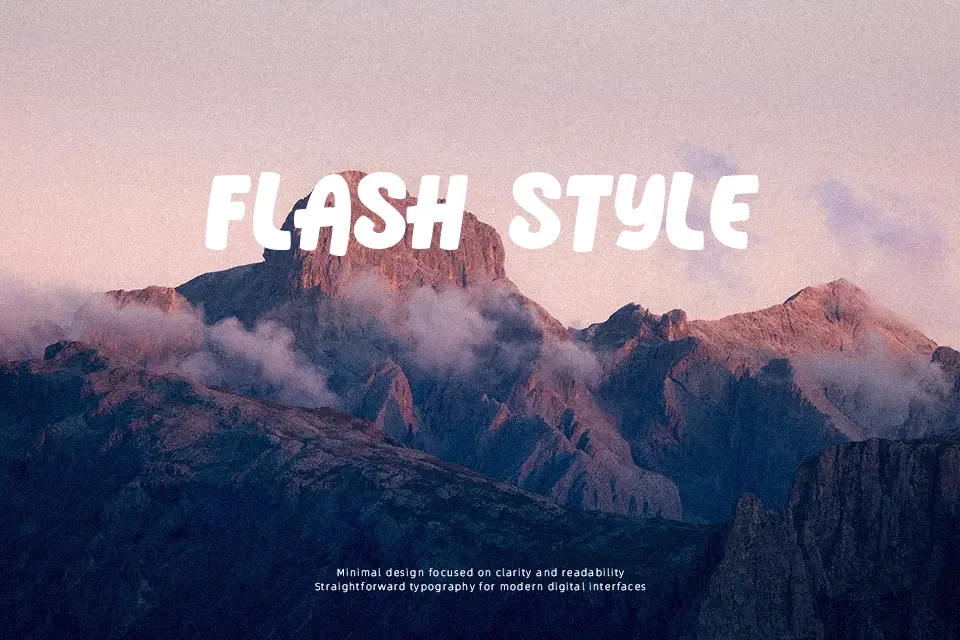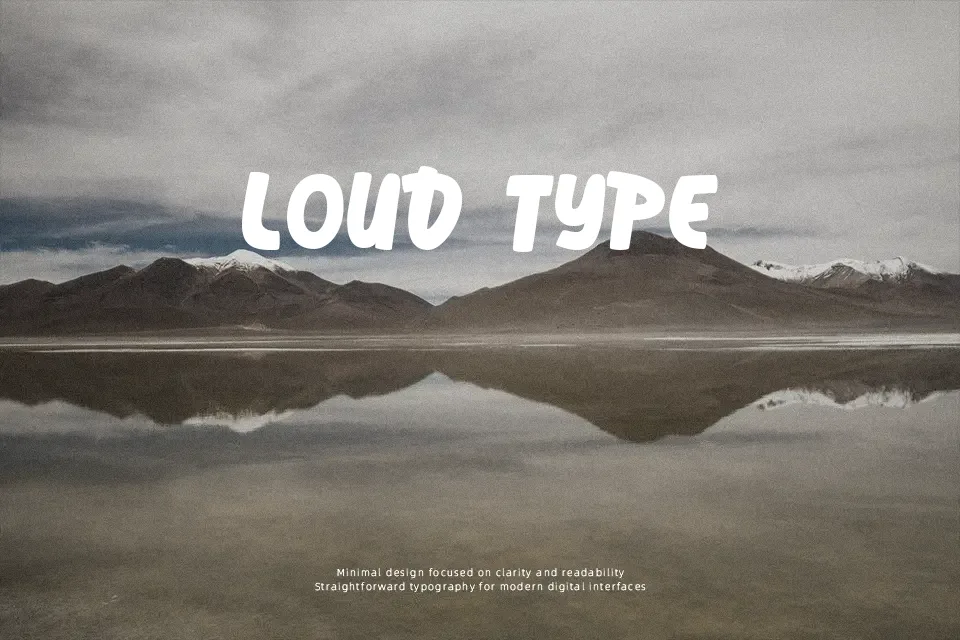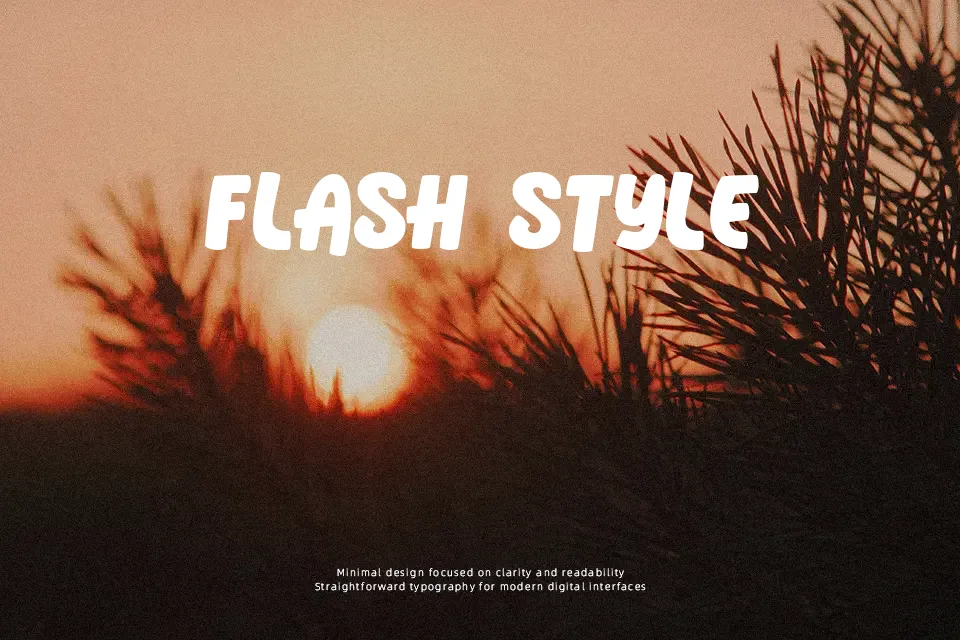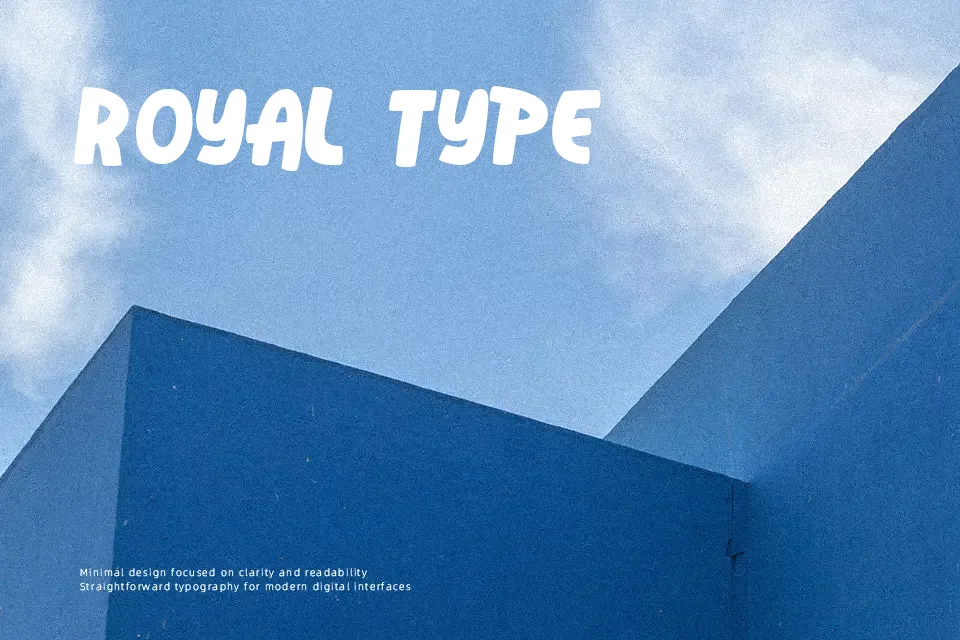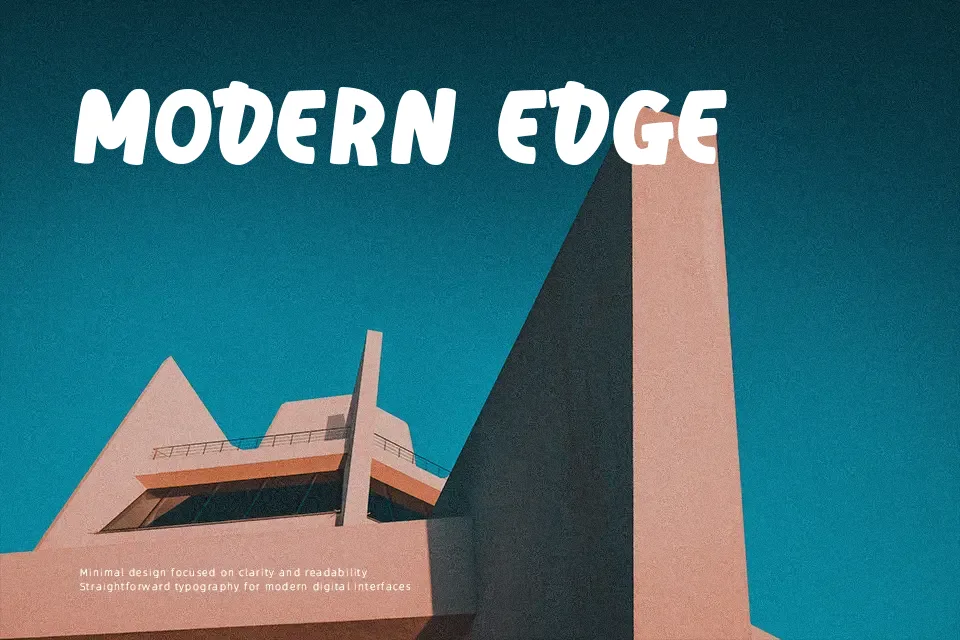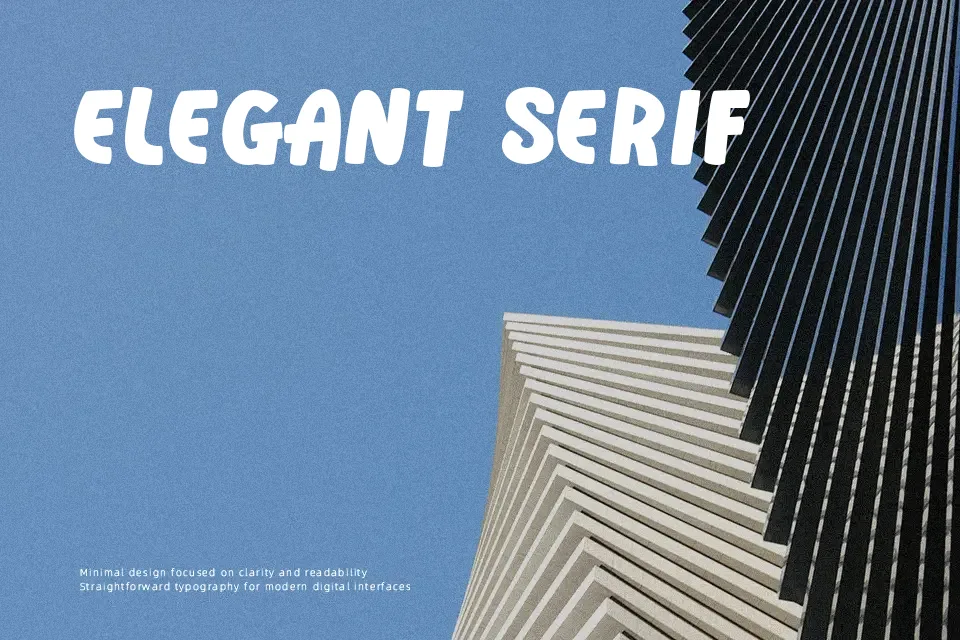
Vanily Font
Vanily Font features bold display letterforms characterized by soft curves, plump outlines, and rounded terminals. The generous stroke weight produces low internal contrast, giving each glyph a solid, punchy presence across headlines. Spacing between characters is compact yet consistent, maintaining clear visual rhythm in short phrases. Proportions remain friendly and approachable, which benefits vibrant branding and promotional graphics. The heavy stroke density reduces clarity at text sizes, making the design less suitable for continuous paragraphs. Overall, the typeface performs best when displayed at larger sizes, where its energetic, cartoon-inspired contours can stand out cleanly without cluttering the composition.
Best For: children’s book covers,food packaging labels,cartoon poster headlines,apparel graphic prints
Not Ideal For: long paragraph text,corporate financial reports,technical documentation,small interface captions
Perfect for branding, headline, and kids, with a bold and cartoon style.